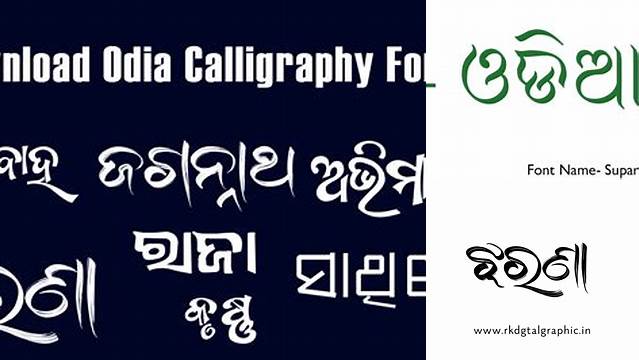
Free & Stylish Odia Fonts Online: Your Ultimate Guide
Are you looking to add a touch of elegance and cultural flair to your digital projects? Look no further! In this comprehensive guide, we'll dive deep into the world of stylish Odia font styles online, helping you discover and utilize these beautiful fonts for free. Whether you're a seasoned designer, a budding content creator, or simply someone who loves the aesthetic appeal of the Odia script, this article is your ultimate resource. We'll explore where to find these fonts, how to install them, and even provide tips on how to use them effectively to create stunning visuals. So, guys, buckle up, because we're about to embark on a typographic journey into the heart of Odisha!
Why Choose Odia Fonts? Exploring the Beauty and Significance
First things first, why should you even bother with Odia fonts, right? Well, let me tell you, there's a whole world of reasons! Odia, also known as Oriya, is a beautiful and expressive language spoken by millions in the Indian state of Odisha and beyond. The script itself is visually captivating, with its rounded letterforms and graceful curves. Using Odia fonts isn't just about aesthetics; it's about connecting with a rich cultural heritage and celebrating the linguistic diversity of India. Odia fonts can add a unique touch to your designs, setting them apart from the generic sans-serifs and serifs we often see. Imagine the impact of using a flowing, elegant Odia font for a wedding invitation, a cultural event poster, or even a social media post. It's a way to show respect for the language and culture, while also creating visually stunning and memorable content. Moreover, with the rise of regional content, incorporating Odia fonts can significantly broaden your audience reach, especially if you're targeting the Odia-speaking community. It's all about creating a sense of belonging and making your content more accessible and relatable.
Let's delve deeper into the practical advantages. When you choose Odia fonts, you're not just selecting a typeface; you're choosing a piece of art. The careful design of each glyph, the way the letters interact with each other, and the overall visual rhythm all contribute to the font's unique character. Unlike generic fonts, Odia fonts bring a level of cultural specificity that can instantly elevate your design. This is especially useful if you're designing for projects related to Odisha, such as websites, blogs, or marketing materials. Imagine a travel blog featuring Odisha – using an Odia font for headlines and quotes would immediately immerse the reader in the culture and create a more authentic experience. Also, consider that using Odia fonts is a fantastic way to support local artists and typographers who work tirelessly to create these beautiful typefaces. It's a way to contribute to the preservation and promotion of the Odia language and culture. It's not just about the end result; it's about the story behind the font. So, next time you're looking for a font, consider the power and beauty of Odia typography – it might just be the perfect choice for your project.
Finding Free Odia Fonts: Your Ultimate Resource Guide
Alright, now for the fun part: where do you actually find these stylish Odia font styles online for free? Thankfully, the internet is brimming with resources! There are several websites and platforms dedicated to providing free fonts, including a wide selection of Odia fonts. One of the best places to start your search is Google Fonts. While Google Fonts may not have a massive selection of Odia fonts compared to some other platforms, they offer high-quality, open-source fonts that are easy to integrate into your projects. You can easily download them and use them for personal or commercial purposes without any licensing hassles. Another great resource is Font Squirrel, which is known for its curated collection of free fonts, often with commercial-use licenses. Always double-check the license before using any font for commercial projects, but Font Squirrel usually provides clear information about the terms of use. Also, explore websites dedicated to Indian languages and scripts, as they often have extensive collections of Odia fonts. These sites are often created by passionate individuals or organizations dedicated to promoting regional languages, making them invaluable resources for font enthusiasts.